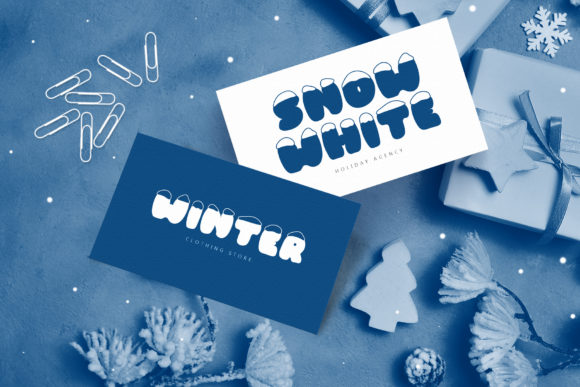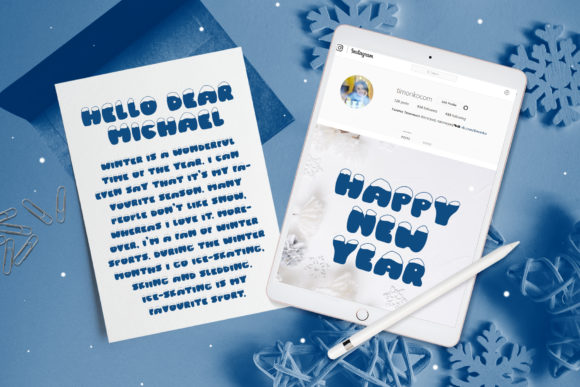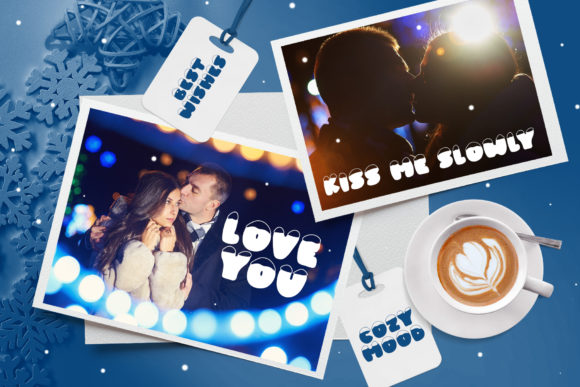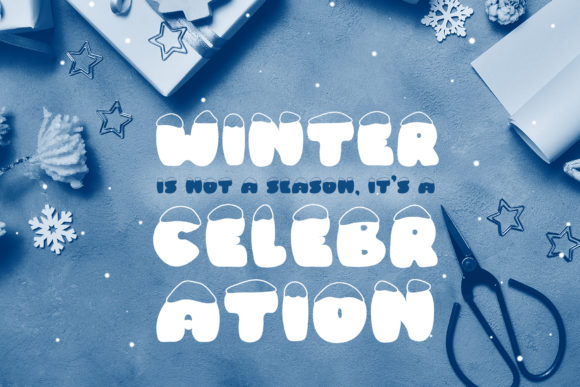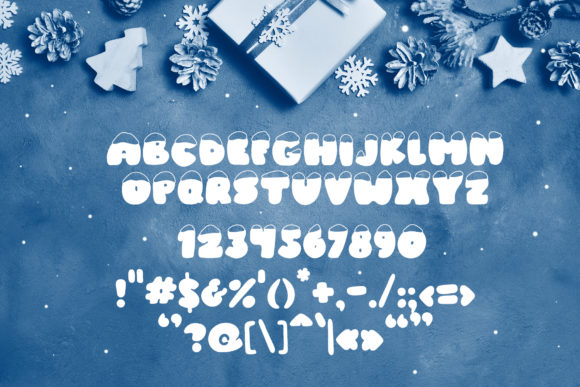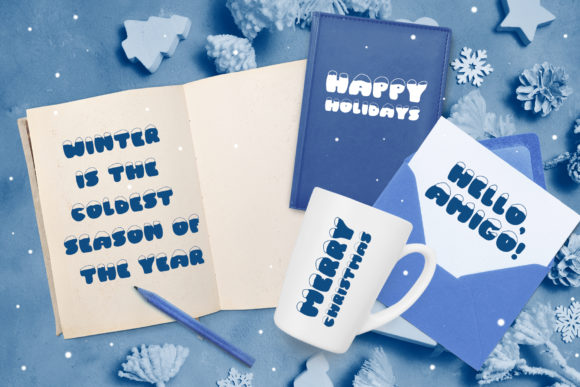
Frosty Joy Font: A Winter Wonderland Addition to Your Design Arsenal
As the winter season approaches, designers and crafters alike start looking for ways to infuse their projects with a touch of frosty magic. If you’re on the hunt for a font that embodies the whimsy and wonder of snowflakes and winter wonderlands, look no further than the Frosty Joy Font. Inspired by the beauty of winter and falling snow, this display font is a must-have for any Winter- or Christmas-themed crafts!
The Inspiration Behind Frosty Joy
Frosty Joy Font draws its inspiration from the serene and enchanting landscapes of winter. The beauty of snowflakes gently falling, blanketing the ground in a layer of white, and the sparkle of frost on a chilly morning – all these elements have been distilled into this charming font. The creator of Frosty Joy aimed to capture the essence of winter’s peace and tranquility, making it perfect for projects that require a touch of seasonal charm.
Key Features of Frosty Joy Font
Frosty Joy Font comes with a range of features that make it an excellent choice for designers and crafters:
- Unique Character Set: The font includes a wide range of characters, ensuring that you have plenty of options for creating unique and personalized winter-themed projects.
- Display Font: Designed specifically as a display font, Frosty Joy is perfect for headlines, titles, and short phrases that need to make a statement.
- Elegant and Whimsical: The font strikes a perfect balance between elegance and playfulness, making it versatile for various design applications, from sophisticated Christmas cards to whimsical winter-themed party invitations.
Use Cases for Frosty Joy Font
The versatility of Frosty Joy Font means it can be used in a multitude of projects, including but not limited to:
- Christmas Cards and Invitations: Add a personal touch to your holiday cards and invitations with Frosty Joy’s charming lettering.
- Winter-themed Party Decorations: Create eye-catching banners, signs, and decorations for winter-themed parties and events.
- Snowflake Designs: Pair Frosty Joy with intricate snowflake designs for a truly magical winter wonderland feel.
- Digital and Print Media: Use Frosty Joy in digital media like social posts, blog headers, and print media such as flyers, brochures, and posters to add a seasonal flair.
Tips for Using Frosty Joy Font Effectively
To get the most out of Frosty Joy Font, consider the following tips:
- Pair with Complementary Fonts: For a balanced look, pair Frosty Joy with simpler fonts for body text or other design elements.
- Experiment with Colors: While icy blues and whites can enhance the winter theme, don’t be afraid to experiment with rich reds and greens for a more traditional Christmas look.
- Play with Sizes: Utilize varying font sizes to create visual hierarchy and emphasize key messages in your designs.
Frosty Joy Font is a delightful addition to any designer’s or crafter’s toolkit, especially those looking to create enchanting winter and Christmas-themed projects. Its unique blend of elegance and whimsy, inspired by the serene beauty of winter, makes it a versatile and charming choice. Whether you’re designing professional materials or crafting personal projects, Frosty Joy is sure to bring a touch of frosty joy to your creations.